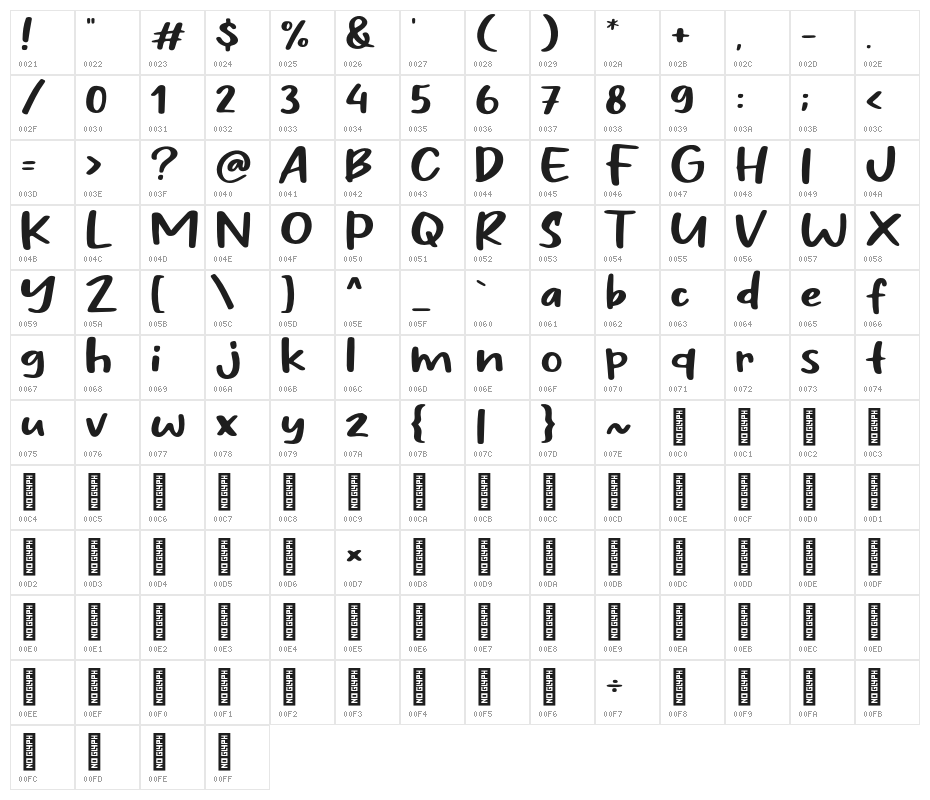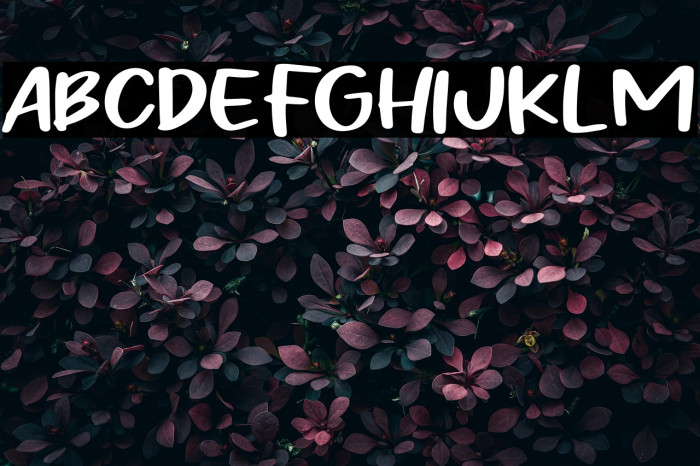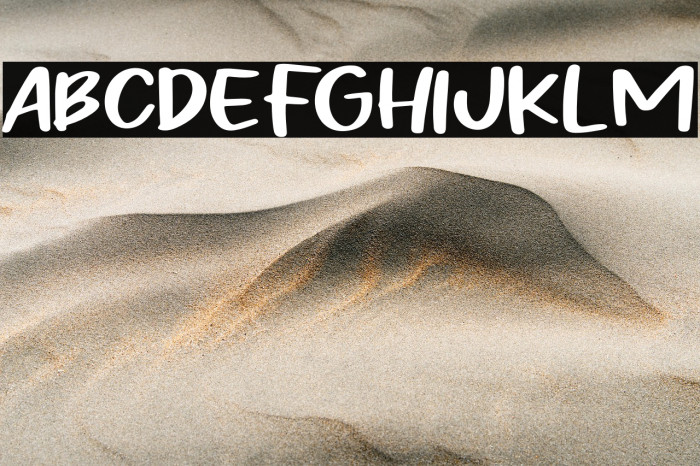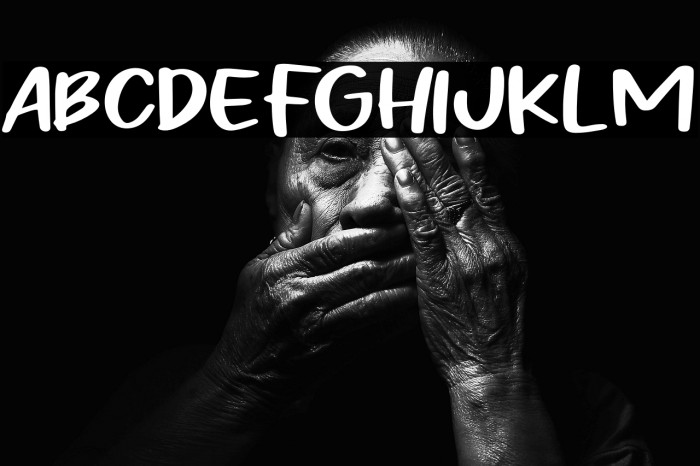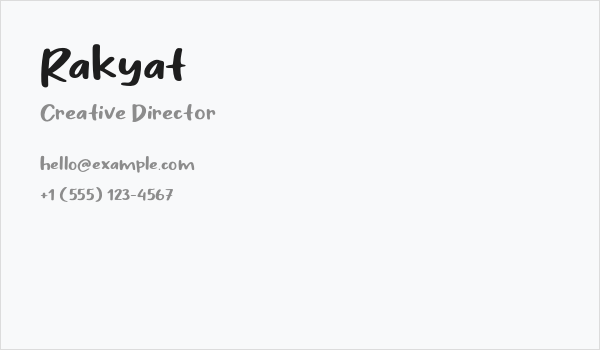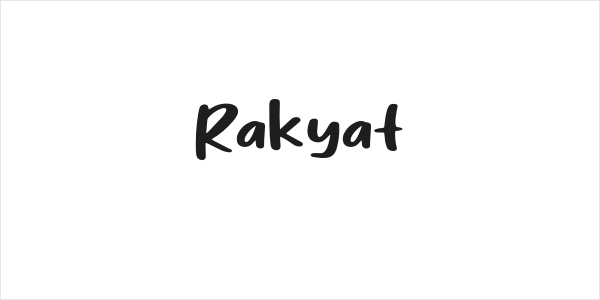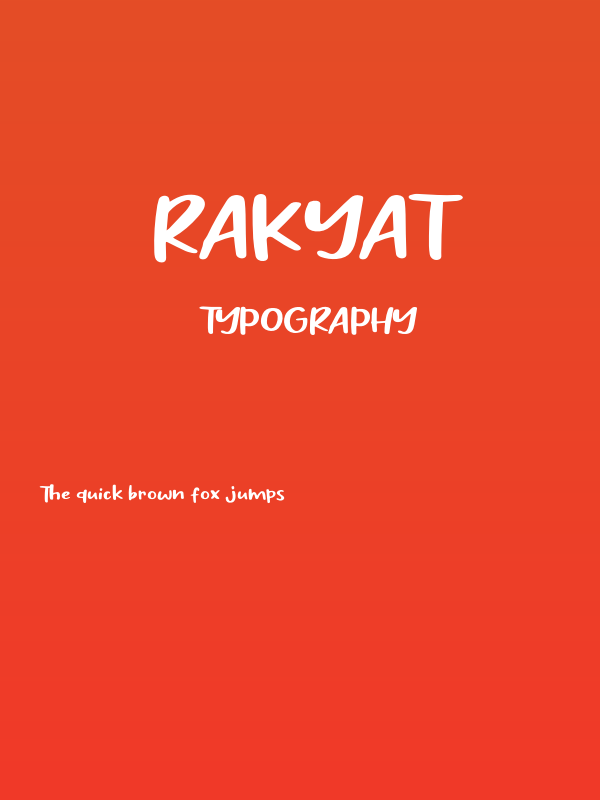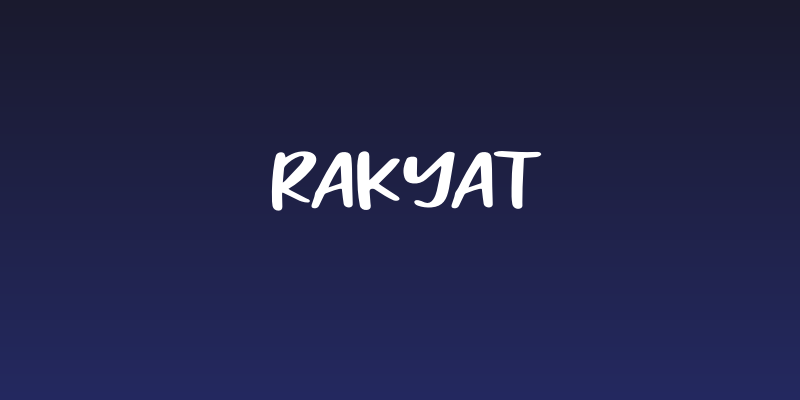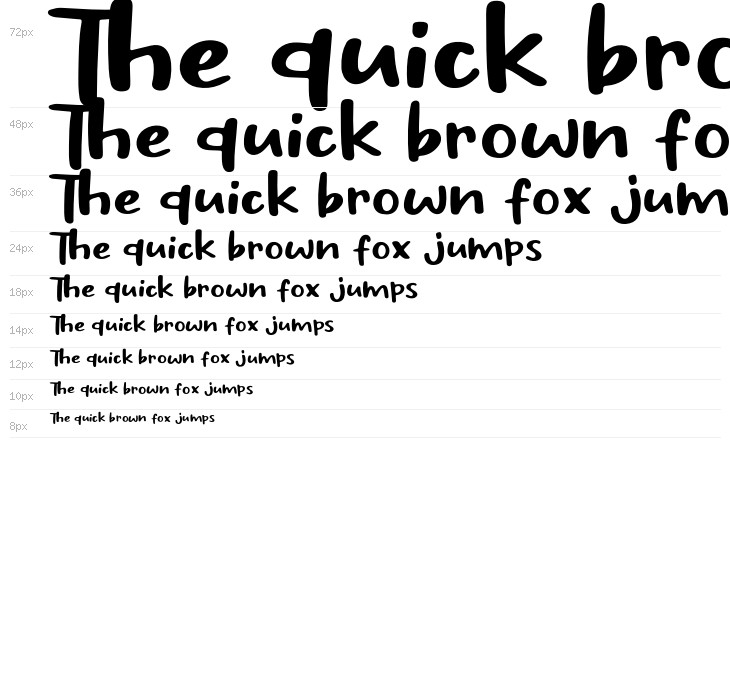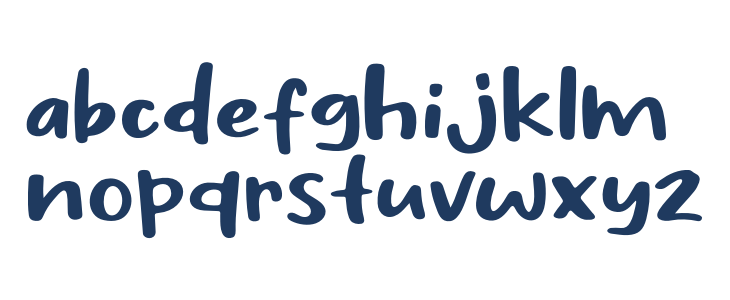
Rakyat Font
Rakyat Description
This font features a playful and casual handwritten style, characterized by its bold and rounded letterforms. The strokes are smooth and consistent, giving it a friendly and approachable appearance. The uppercase and lowercase letters maintain a uniform width, while the numerals and special characters complement the overall design with their rounded edges. The font's informal nature makes it suitable for projects that aim to convey warmth and creativity.
| Proposed Projects | Ideal for greeting cards, children's books, playful branding, and social media graphics. |